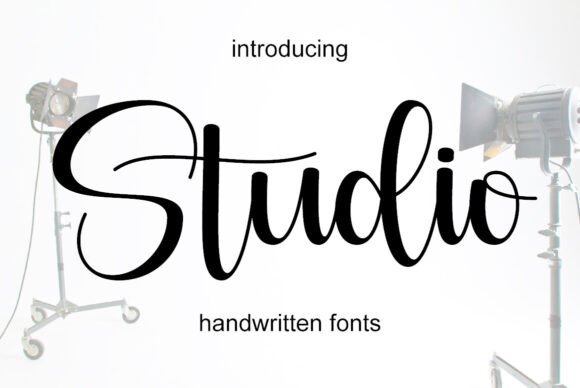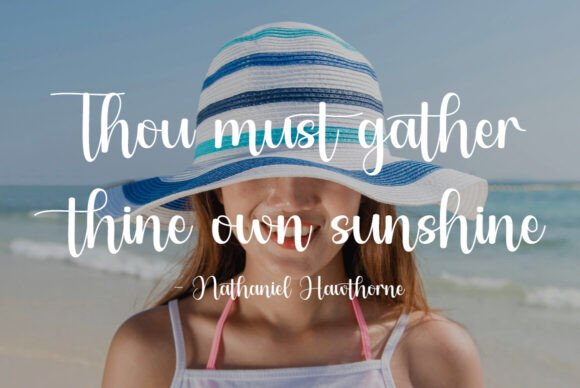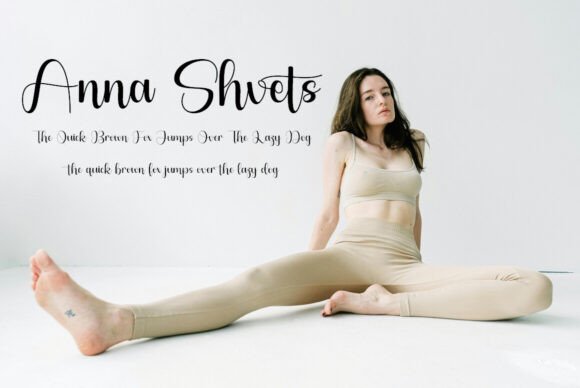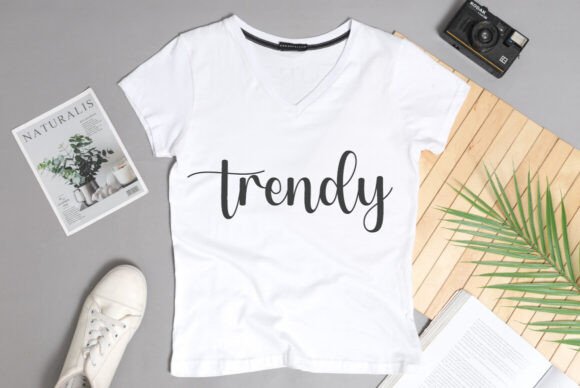
Studio Font: Elegant Handwritten Script for Wedding Design
About the Studio Font
Meet Studio Font, a stunning font that brings a touch of elegance and professionalism to any design. Studio is a sweet and cursive handwritten font. This gentle font will look gorgeous on a variety of design ideas. It will add a joyful and romantic touch to each of your projects! Perfectly fit for branding, logo, wedding things, greeting cards, fashion, lookbook, marketing promotion, and any time you want your design to look fancy and elegant but still casual.
Studio Font Usage Examples
Studio Font Example